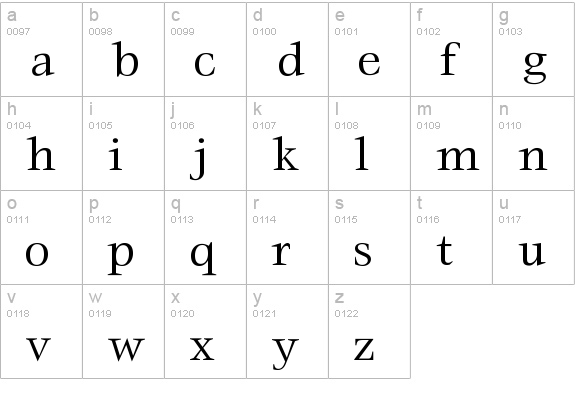
VeljovicBook Font Details
VeljovicBook is a beautifully crafted font that exudes elegance and sophistication. This typeface, designed by Jovica Veljovic, showcases a harmonious balance between traditional and modern elements, making it suitable for a wide range of design projects. With its graceful curves and precise letterforms, VeljovicBook captures attention and adds a touch of refinement to any text it graces. The font's generous x-height and well-proportioned characters ensure excellent legibility, making it ideal for both body text and headlines. What makes VeljovicBook even more remarkable is that it is freely available to download at FontsMarket.com. In a world where premium fonts often come with a hefty price tag, being able to access this font at no cost is a true gift for designers and typographers. Whether you are working on a branding project, editorial design, or even personal creative endeavors, VeljovicBook offers a versatile and timeless aesthetic that will elevate your work to new heights. Its wide range of weights and styles gives you the flexibility to experiment and find the perfect fit for your design needs. Download VeljovicBook today from FontsMarket.com and experience the freedom to create stunning designs with this exceptional font.